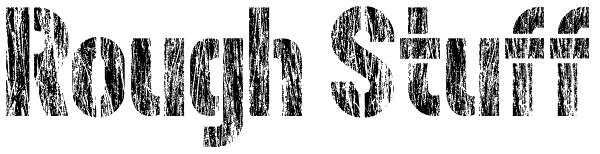
Rough Stuff
Cool and contemporary or hot and happening? Street smart or down and dirty? You decide. Either way Rough Stuff will add a dash of style and the stamp of authenticity to your graphic projects. Perfect for tee shirt slogans or gig posters. Suitably...
Rough Stuff Italic
Rough Stuff